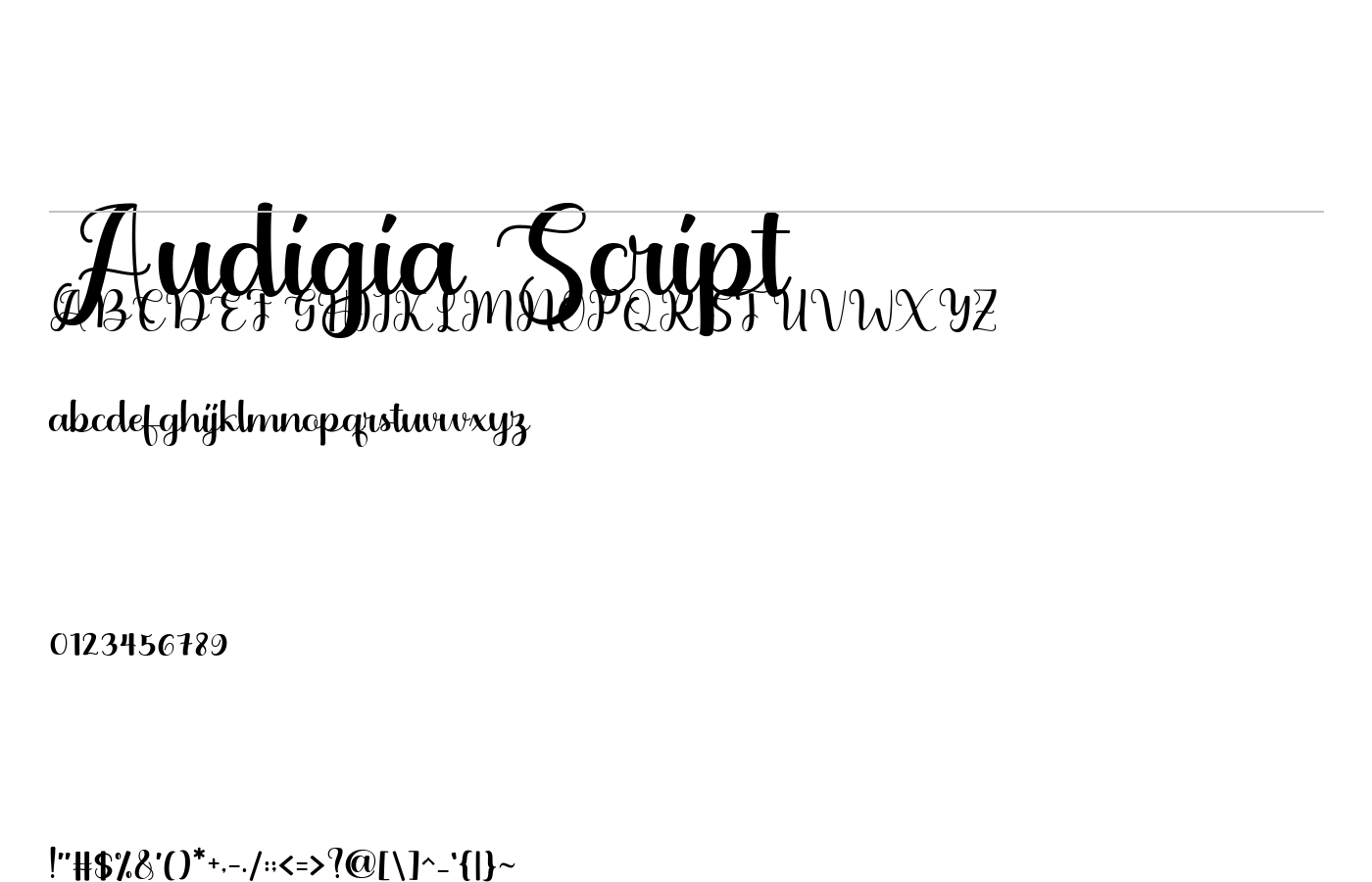
Audigia Script is a stylish and elegant script font featuring fluid, connected letterforms with moderate contrast and graceful swashes. Its smooth, flowing strokes and playful letter details convey a friendly yet sophisticated personality, making it ideal for wedding invitations, branding, and decorative headlines. This font works well where a personal, artistic touch is desired, adding charm and elegance to any design.
Audigia Script Font
About Audigia Script Font